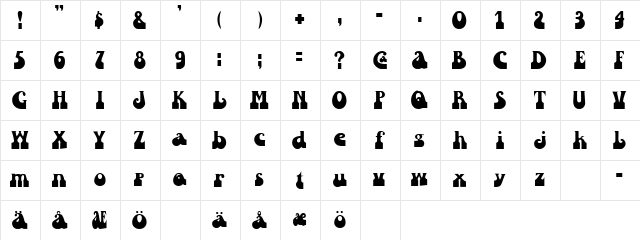
IVANNA Regular
Design Context for IVANNA Typeface
IVANNA is a composed and adaptable typeface that performs quietly and consistently across a wide range of design contexts.